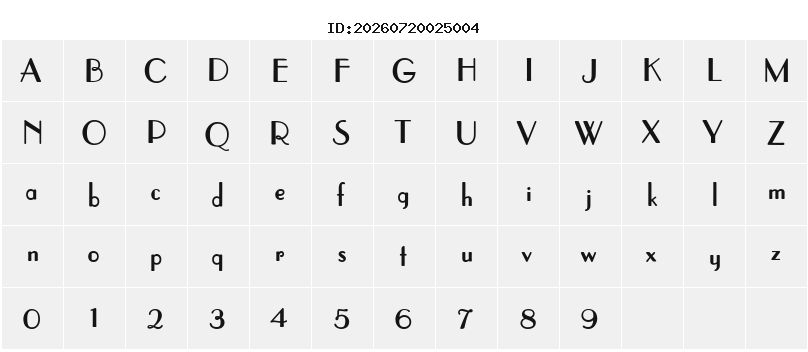
• Font Name: Elysee
• Font ID: Elysee Bold
• Full Font Name: Elysee Bold
About Elysee.ttf
Elysee.ttf is a modern, elegant sans-serif font designed for ultimate readability and visual harmony. Perfect for branding, headlines, web design, and print materials.